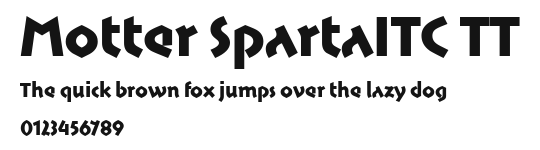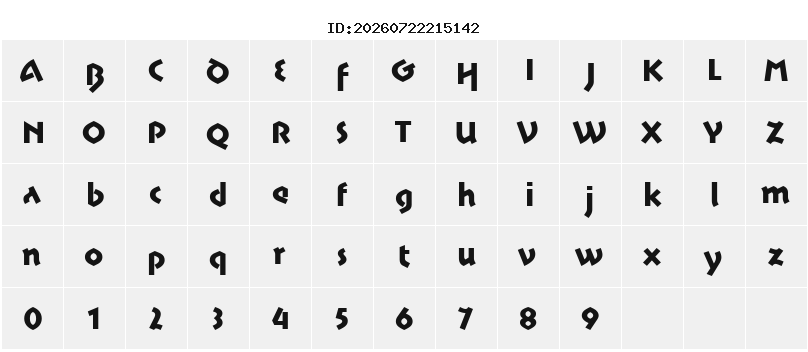
• Font Name: Motter SpartaITC TT
• Font ID: Motter SpartaITC
• Full Font Name: Motter SpartaITC TT
About Motter SpartaITC TT.ttf
Motter SpartaITC TT.ttf is a modern, elegant sans-serif font designed for ultimate readability and visual harmony. Perfect for branding, headlines, web design, and print materials.